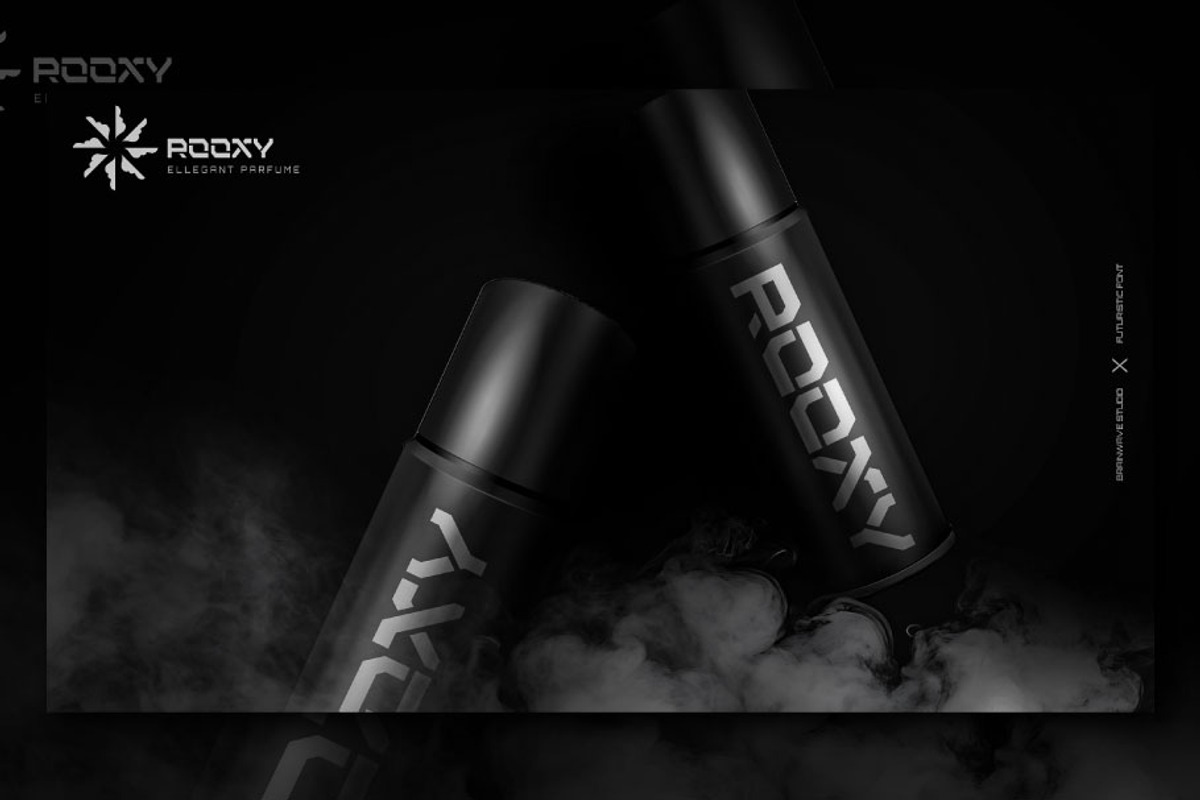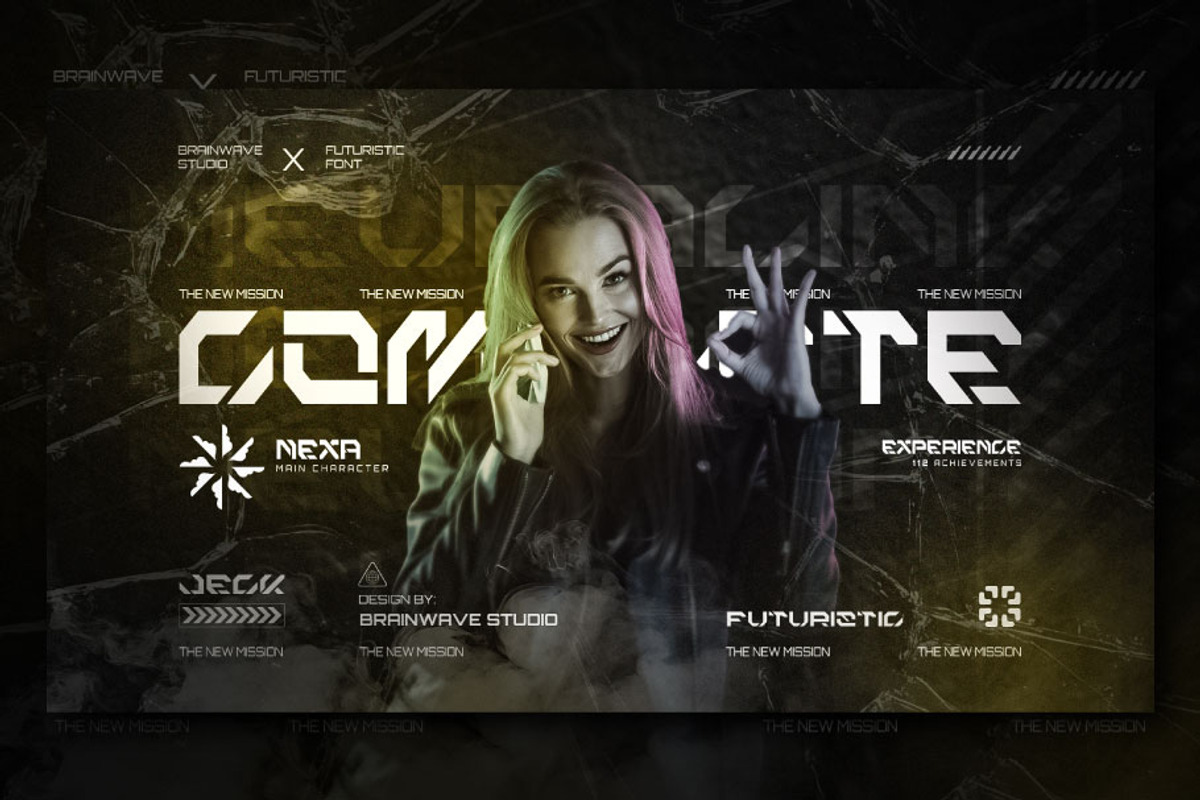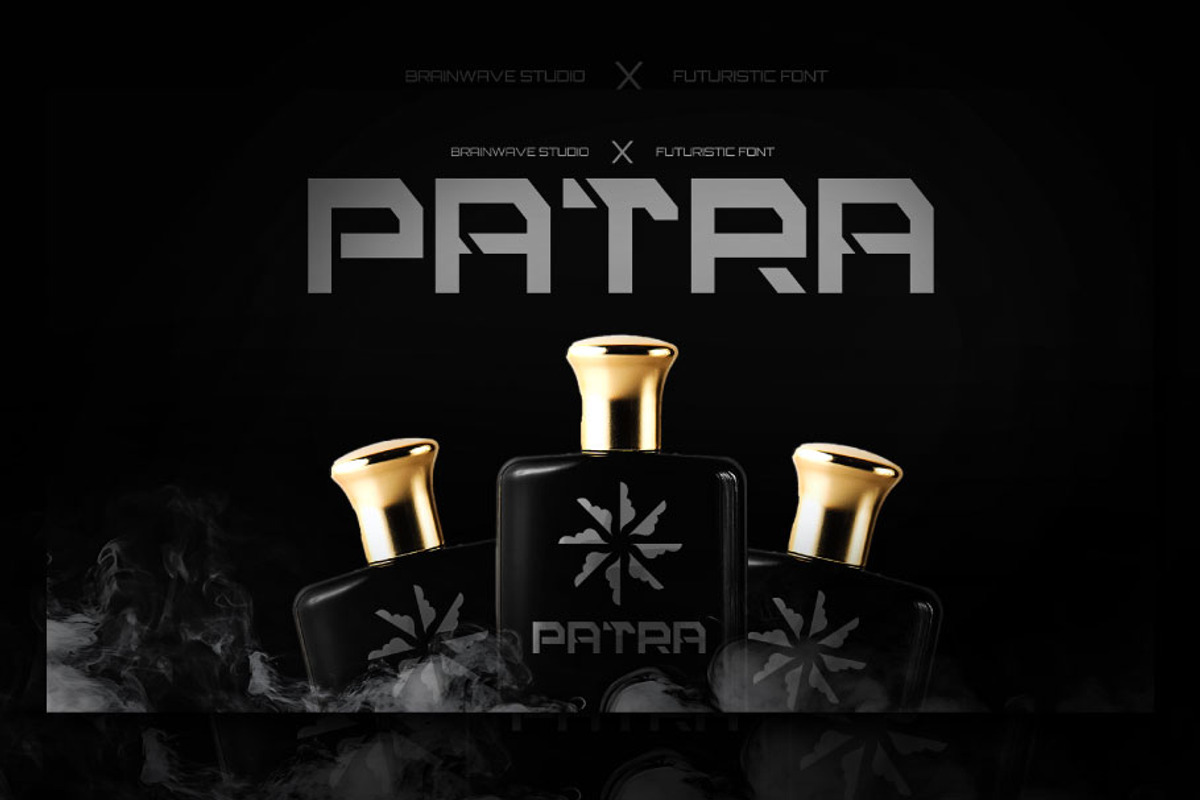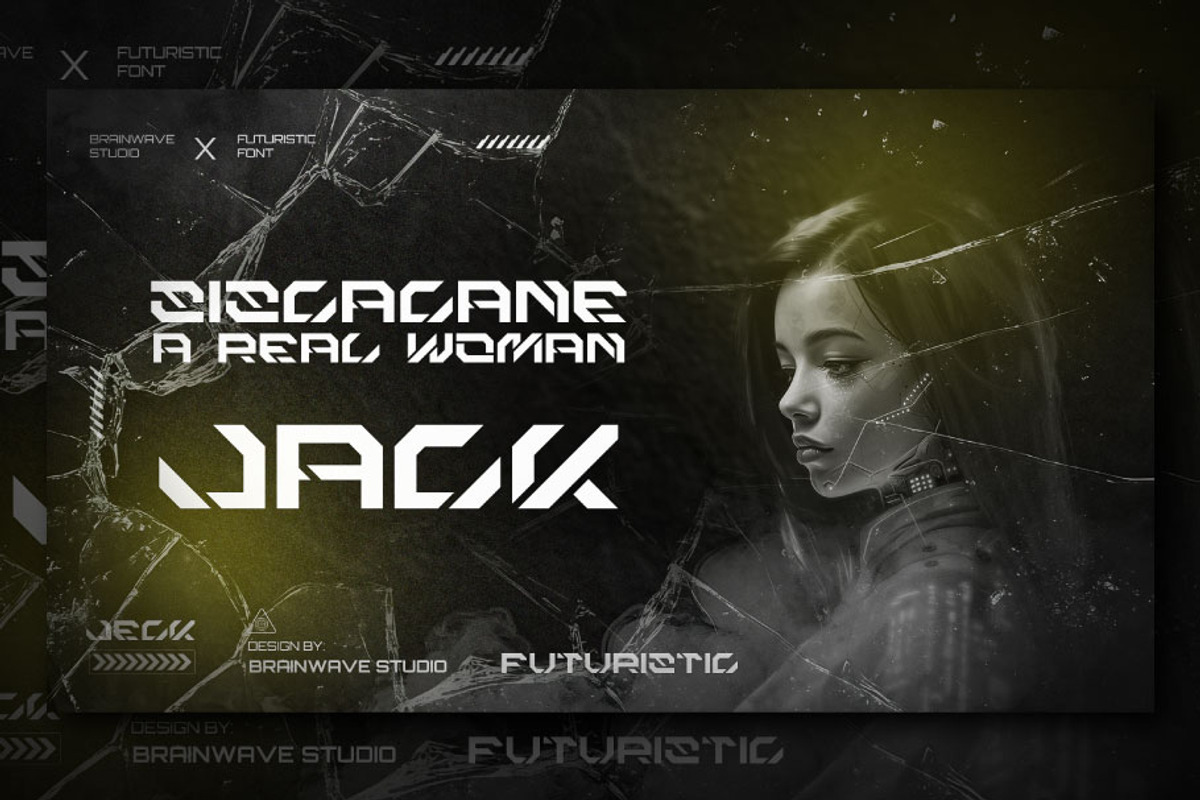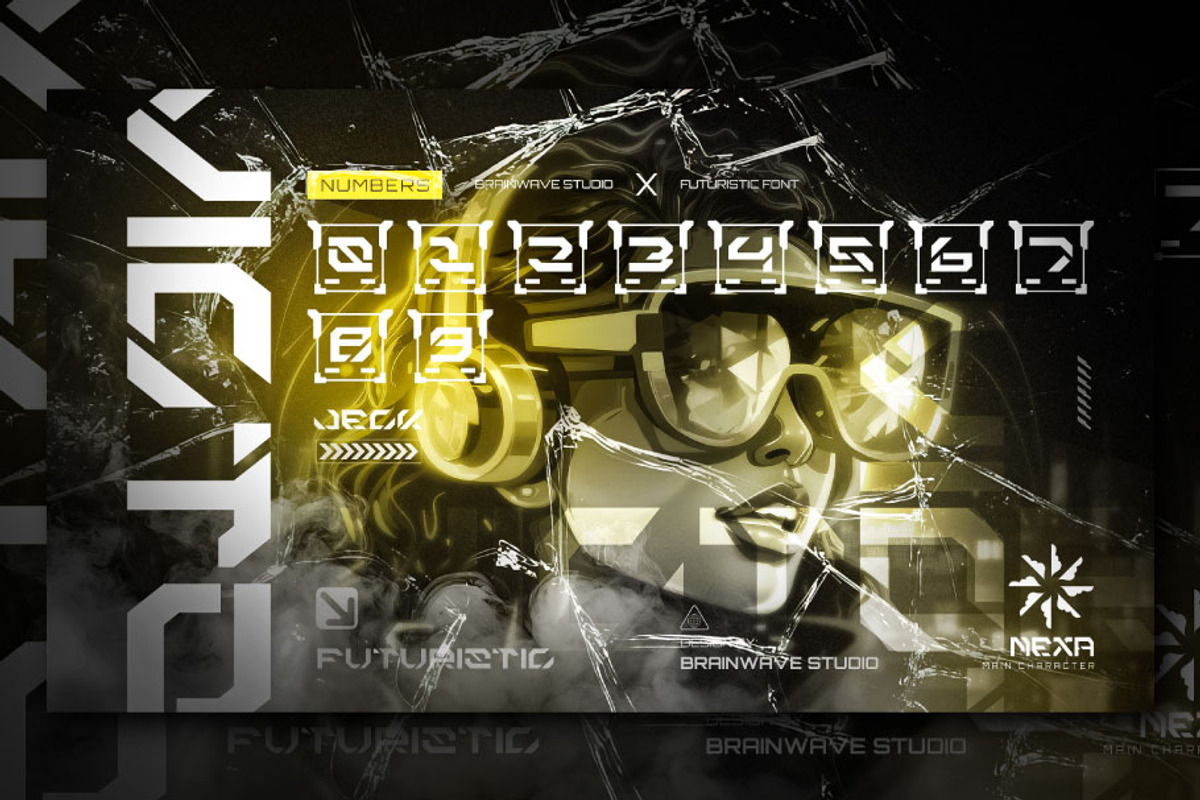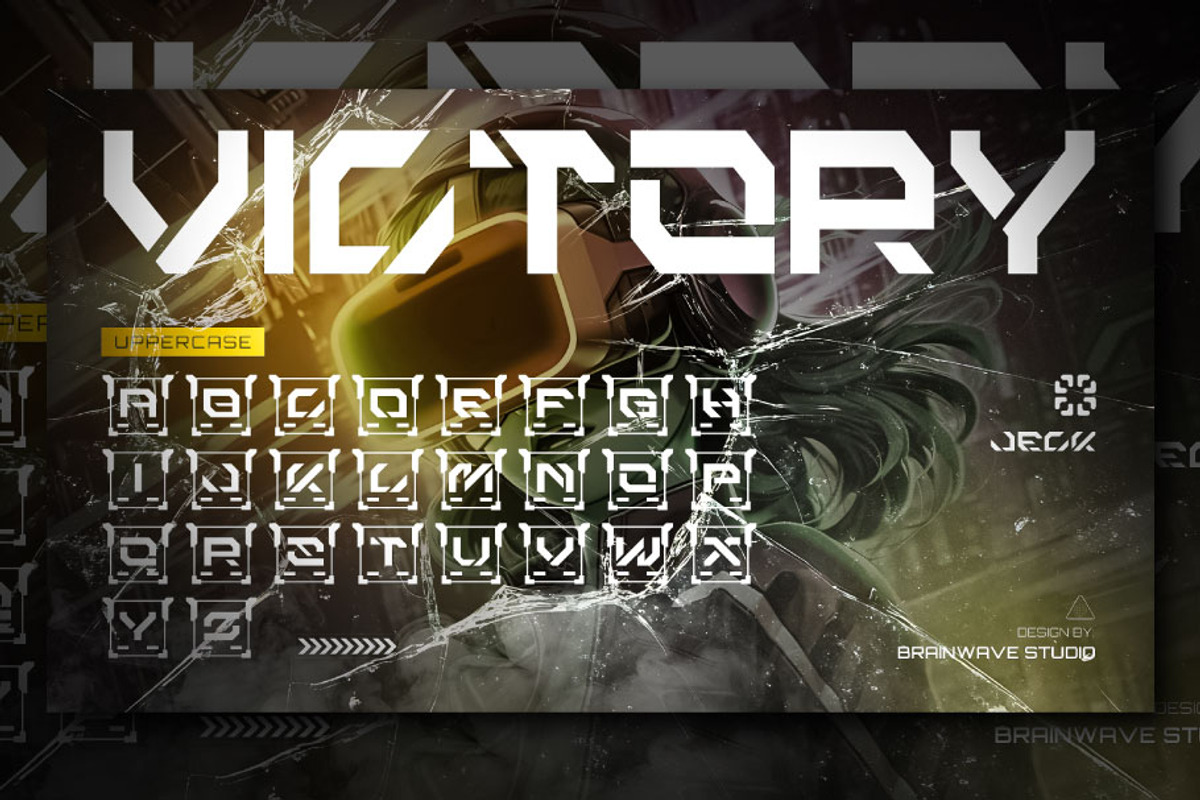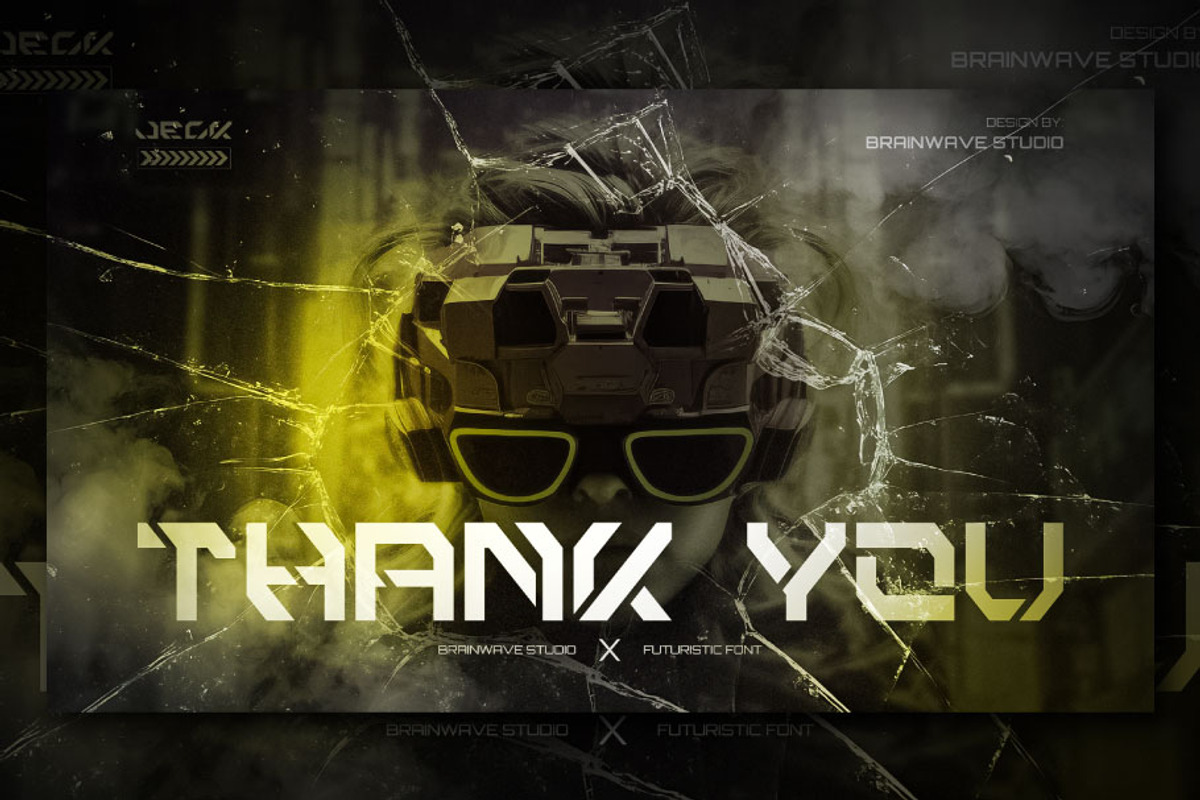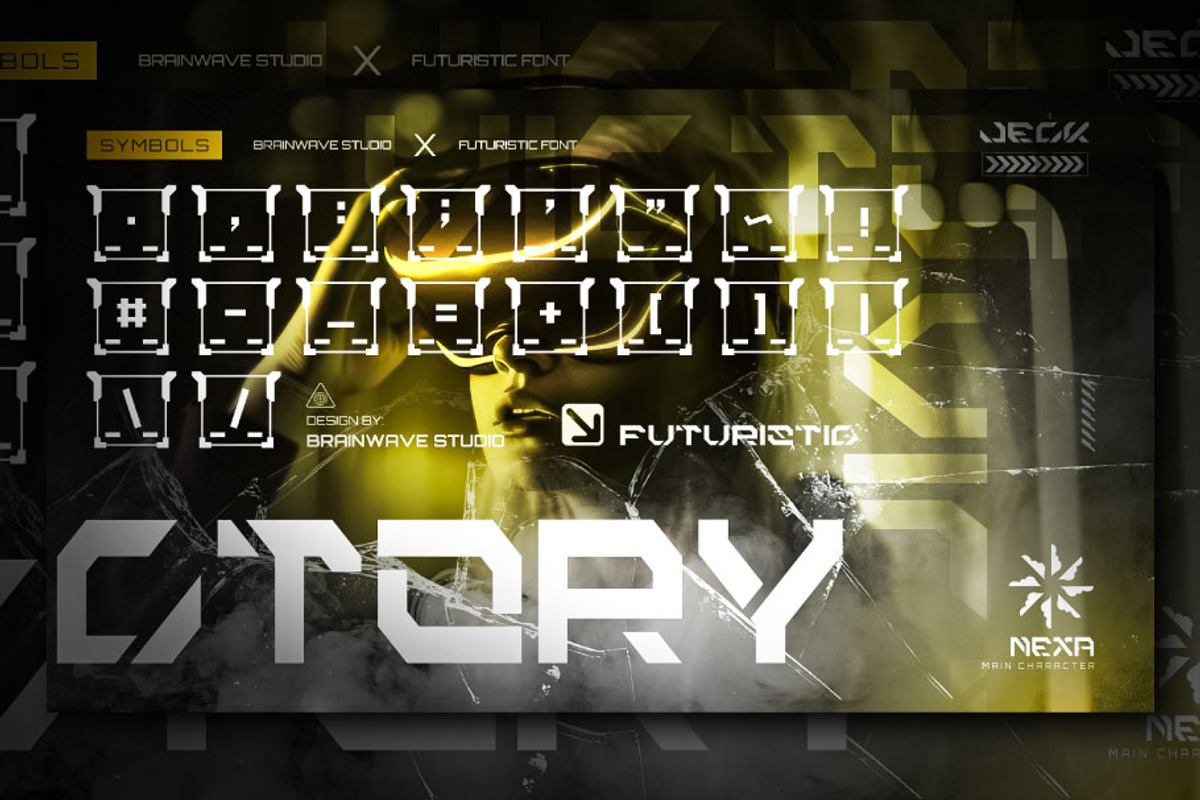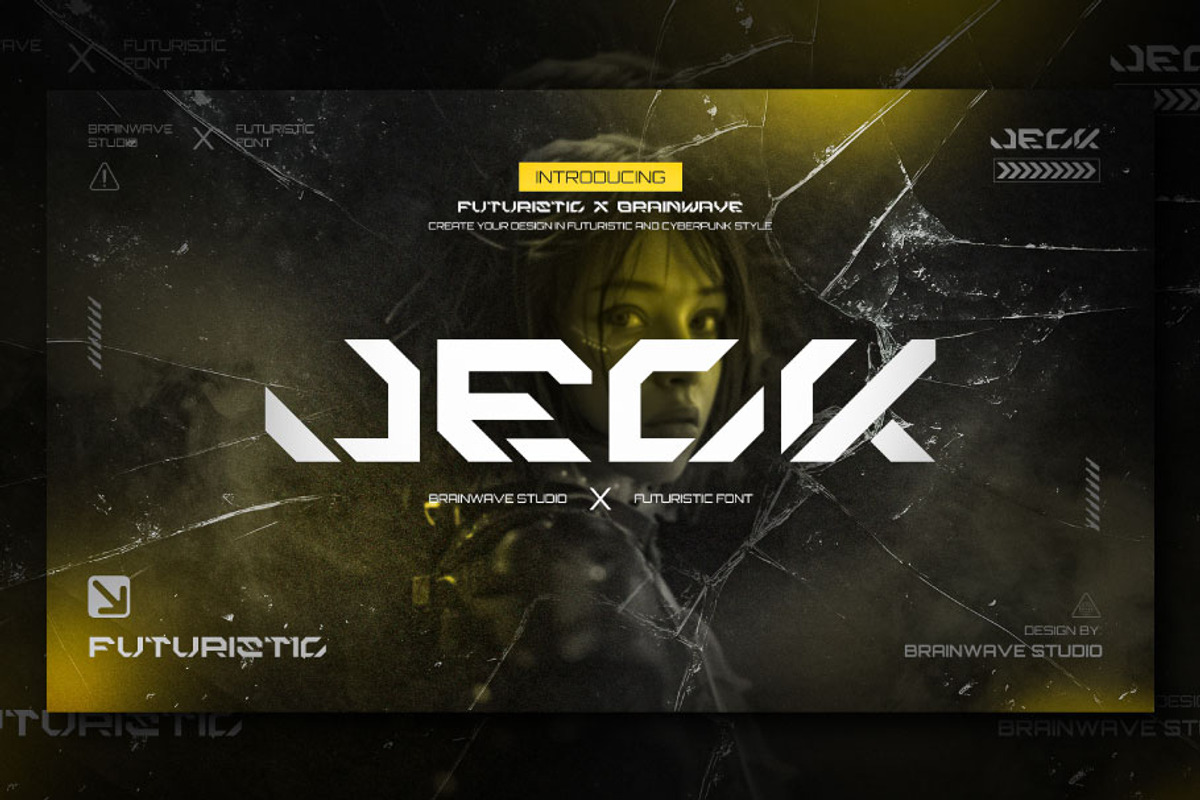
JECK - Futuristic and Cyberpunk Font
JECK is a visual representation of a world filled with innovation, technology, and dystopia. With a futuristic touch and strong cyberpunk elements, this font is ready to create bold, edgy, and energy-filled design looks for the future. Its sharp and precise design gives a modern, sophisticated impression, making it ideal for brands, media, or products that want to highlight a high-tech identity or a futuristic digital world.